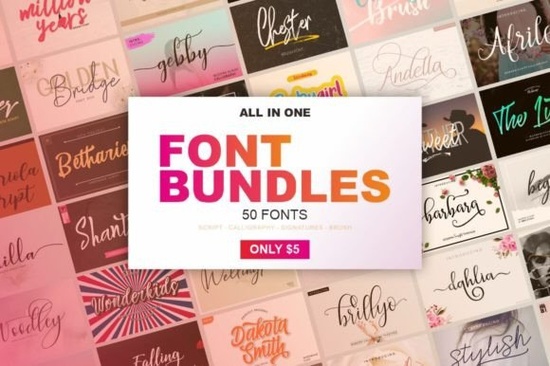
If you're looking for a reliable, well-rounded set of handwritten fonts that work across invitations, social media posts, print-on-demand products, or small business branding All in One Font Bundles Font is a practical choice. It’s not just another font pack with filler styles; it’s 50 thoughtfully selected handwritten fonts, grouped into clear categories: scripts, calligraphy, signatures, and brush-style typefaces. Each font is designed to feel authentic not overly digitized or stiff and many include alternate characters, ligatures, or swashes that make customizing text feel intuitive, even for beginners.
What kinds of projects does this bundle actually help with?
Realistically, if you’ve ever spent 20 minutes searching for “a friendly but elegant script for wedding invites” or “a bold, bouncy signature font for t-shirt designs,” this bundle saves time. You’re not scrolling through dozens of separate listings or testing mismatched weights and spacing. Everything lives in one place, and the variety means you can match tone to purpose: soft loops for baby shower banners, sharp contrast calligraphy for boutique logos, quick-dry brush strokes for Instagram story text overlays.
How do these fonts compare to other popular script options?
Unlike single-font releases that focus on one mood or technique, All in One Font Bundles Font gives you range without overlap. You’ll find styles similar to Direkt Stencil Font, but also softer alternatives like those in the handlettering fonts collection. If you like the organic flow of Marney Holland Font, you’ll recognize that same warmth in several of the brush-based fonts here. And while relationship-focused script fonts often lean romantic or minimalist, this bundle includes options that work just as well for playful kids’ party invites or modern café menus.
One standout group is the signature fonts these aren’t just stylized initials. Many include full lowercase and uppercase sets, punctuation, and even numbers, so you can build real phrases (“Est. 2023”, “Hand-poured in Portland”) instead of relying only on decorative monograms.
Are these fonts beginner-friendly?
That said, if you’re new to pairing fonts, start simple: combine one script from the bundle with a clean sans-serif (like Montserrat or Poppins) for contrast. Avoid stacking multiple handwritten fonts in one layout unless they share similar x-heights and slant angles something easier to test when you have 50 options in front of you.
Where do crafters and POD sellers use these fonts most often?
- Print-on-demand: T-shirt quotes, tote bag slogans, and enamel pin text benefit from the expressive energy of brush and signature fonts especially when printed at larger sizes where texture reads clearly.
- Digital planners & printable kits: The lighter-weight scripts work beautifully for headers and section dividers, while bolder calligraphy fonts stand out in cover graphics.
- Wedding & event design: From save-the-dates to seating charts, having multiple script weights lets you create visual hierarchy without switching font families.
- Social media graphics: Instagram carousels and Pinterest pins gain personality with hand-drawn lettering especially when layered over photos with subtle blending modes.
For designers who already own a few favorite scripts, this bundle fills gaps rather than replacing what you love. Think of it as your “go-to backup drawer” where you land when the usual suspects don’t quite fit the brief.
Before downloading, check the preview images for each font’s character set. Some include multilingual support (like extended Latin or basic diacritics), while others are English-only. All are compatible with Windows and macOS, and most work in cutting machines like Silhouette Studio (with proper font installation).
- Test spacing and kerning at your intended size some scripts tighten up better than others.
- Pair with a neutral font for body text, not another script.
- Try one font across three different projects first (e.g., a quote graphic, a logo mockup, and a printable label) to see how it holds up in context.